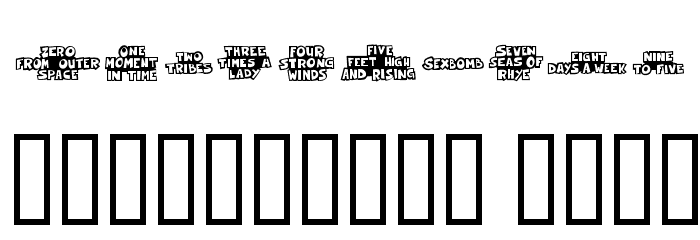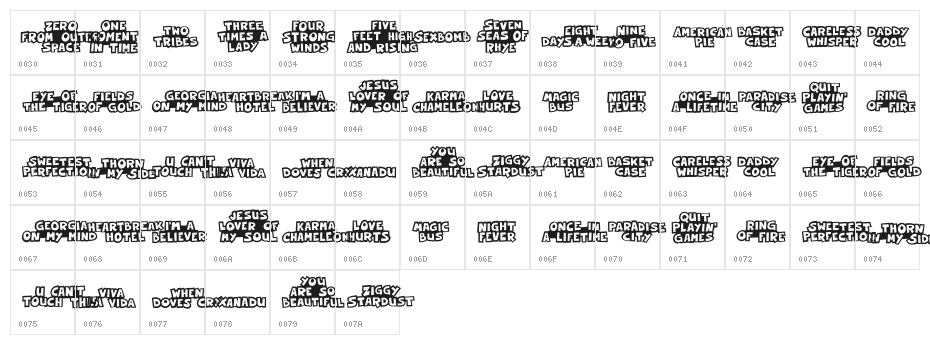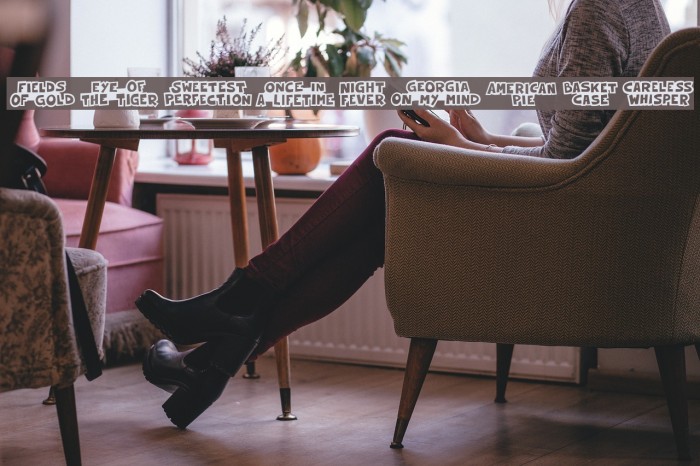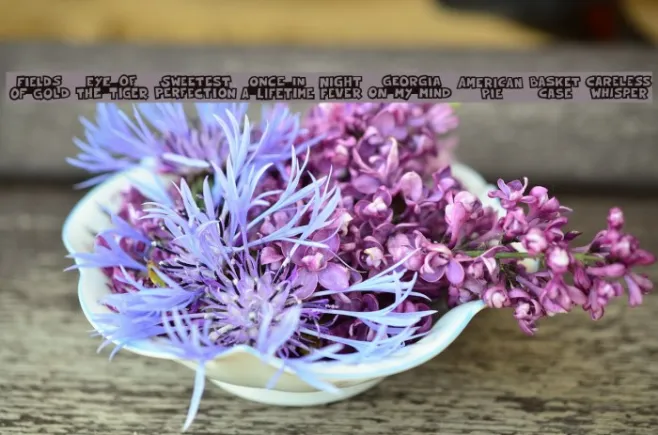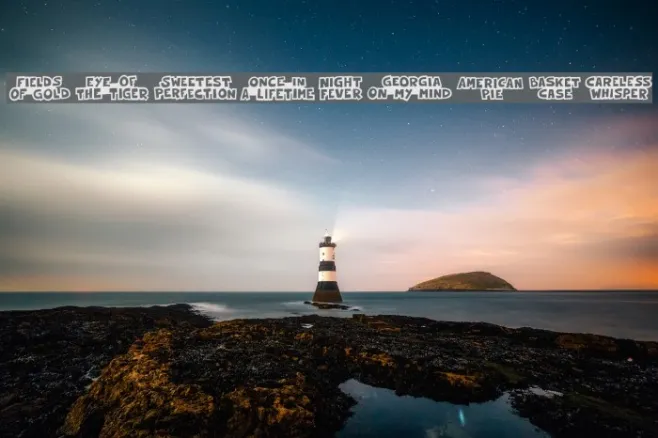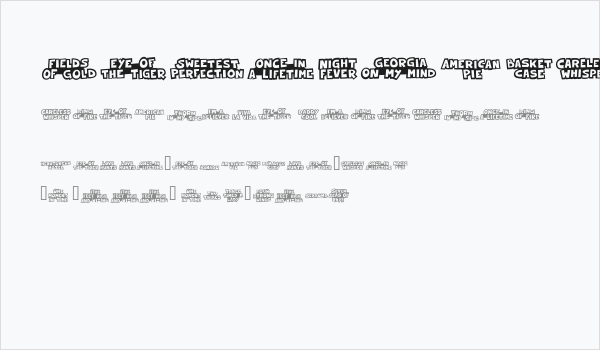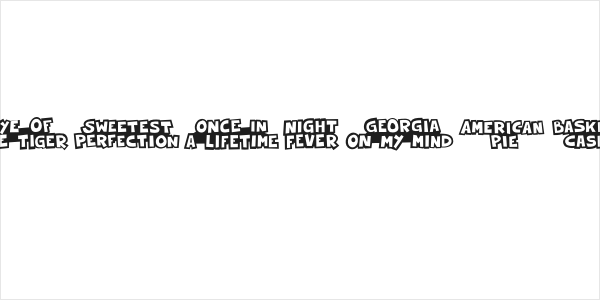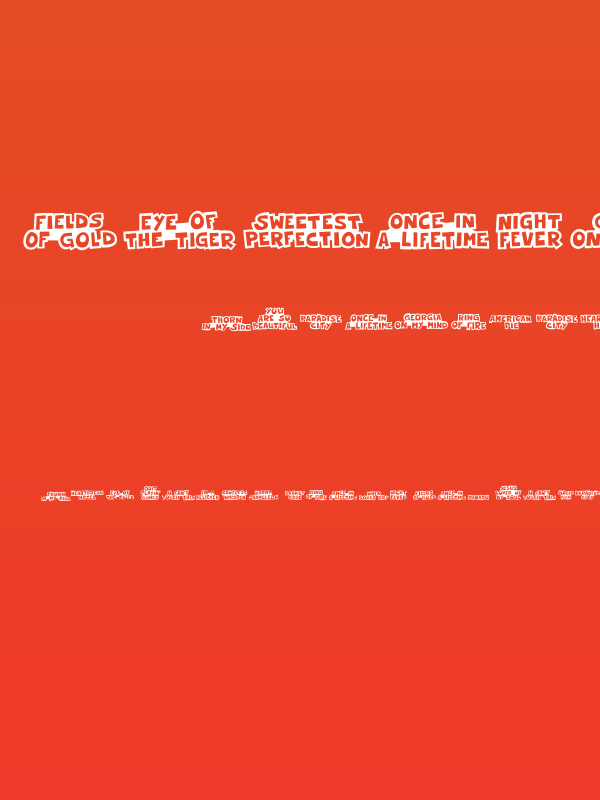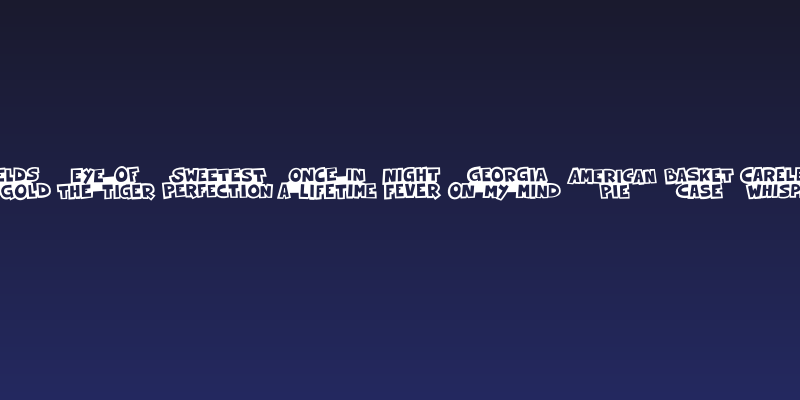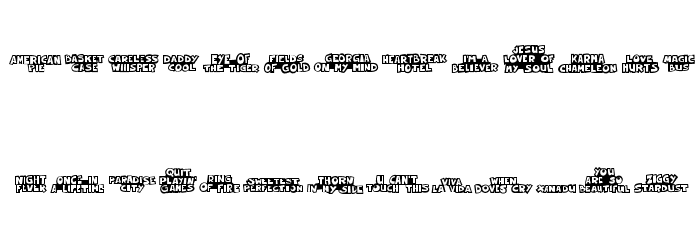
FESongABC Font
FESongABC Description
This font features a bold and playful design with a distinct decorative style. Each character is crafted with a unique flair, incorporating elements that make it stand out in a variety of contexts. The uppercase letters are robust and eye-catching, while the lowercase letters maintain a consistent style that complements the overall aesthetic. Numbers and special characters are designed with the same attention to detail, ensuring a cohesive look across all text. The font's design is reminiscent of retro and vintage styles, making it ideal for projects that require a touch of nostalgia or whimsy.
| Overall Style | Vintage, Decorative |
| Proposed Projects | Ideal for posters, album covers, retro-themed designs, and branding projects that require a unique and eye-catching typeface. |